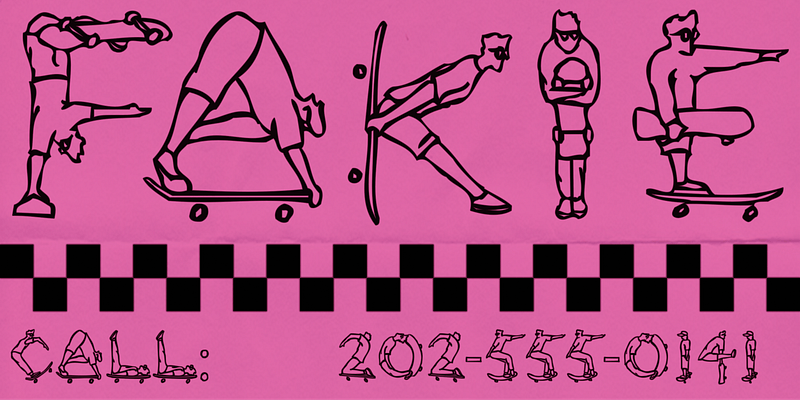
Rad specimen
Rad
John Ritter, Adobe graphic designer, adapted Rad from a skateboard alphabet that he created for a college design assignment. In Rad, he captures the “no rules” spirit of the skateboard scene—one John was rolled up in when he wasn’t busy studying.